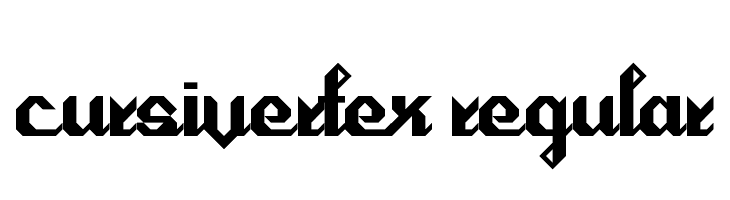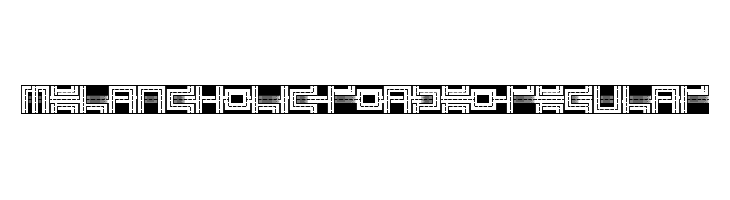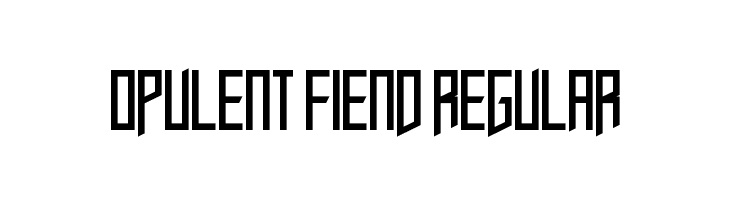
A bold, angular font with a futuristic and geometric design.
A bold, angular font with a modern, futuristic style.
A bold, geometric font with sharp angles and a futuristic style.
A bold, geometric font with sharp angles and a modern, edgy aesthetic.
A geometric, maze-like font with a modern, digital aesthetic.
A bold, pixelated font inspired by retro digital displays.
A futuristic, line-based display font with angular and energetic characters.
A bold, angular font with a futuristic and dynamic style.
A bold, geometric font with angular lines and modern design elements.
A futuristic, angular font with sharp edges and a bold, modern style.